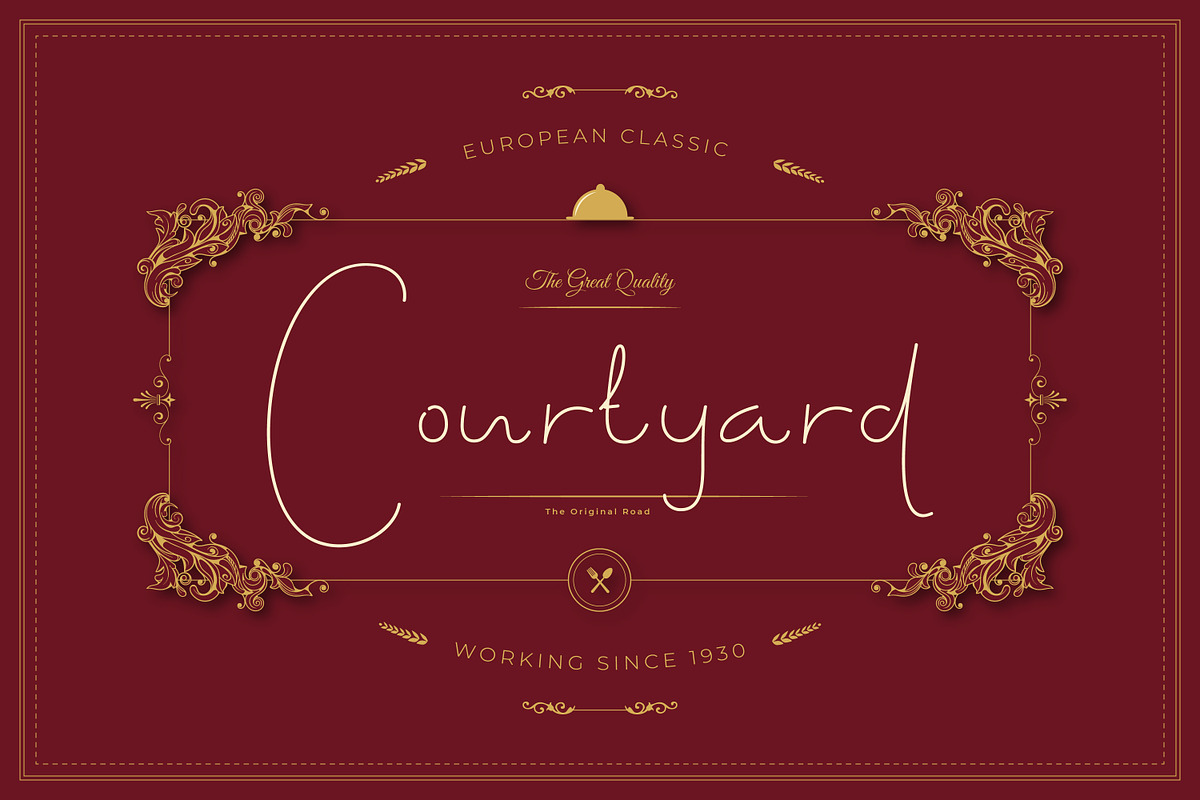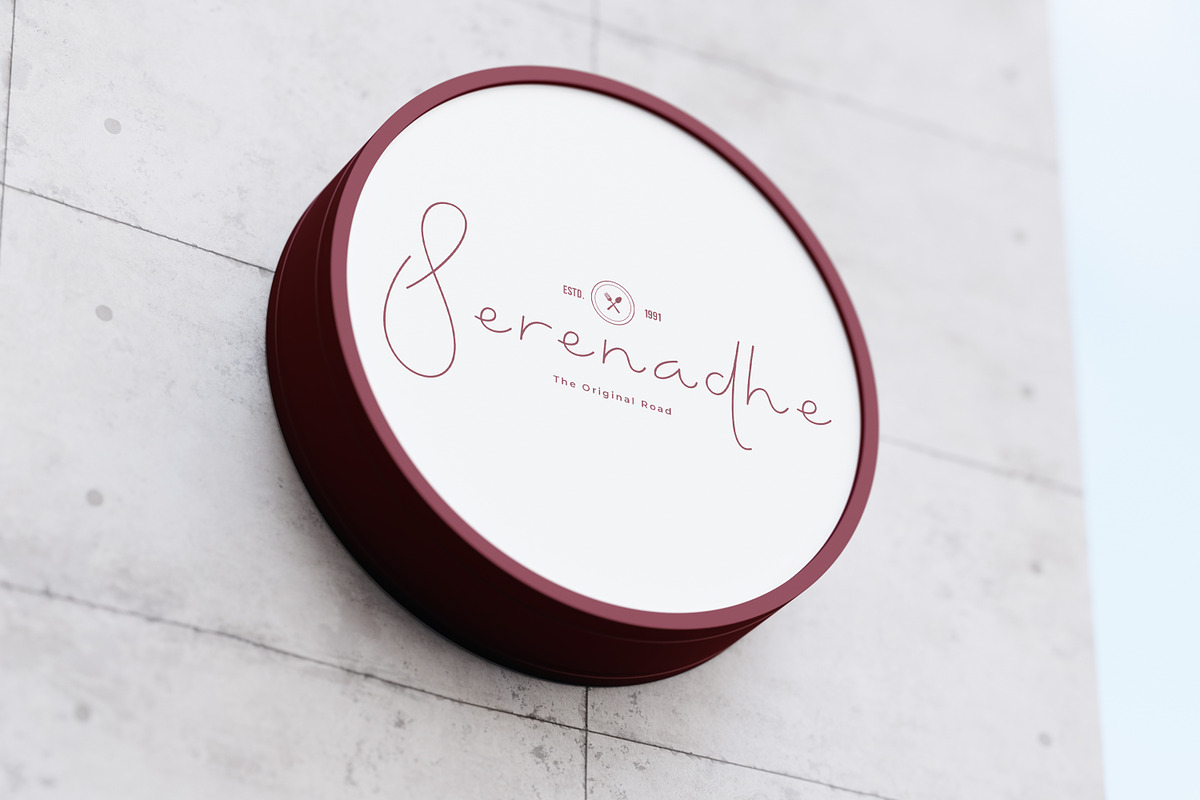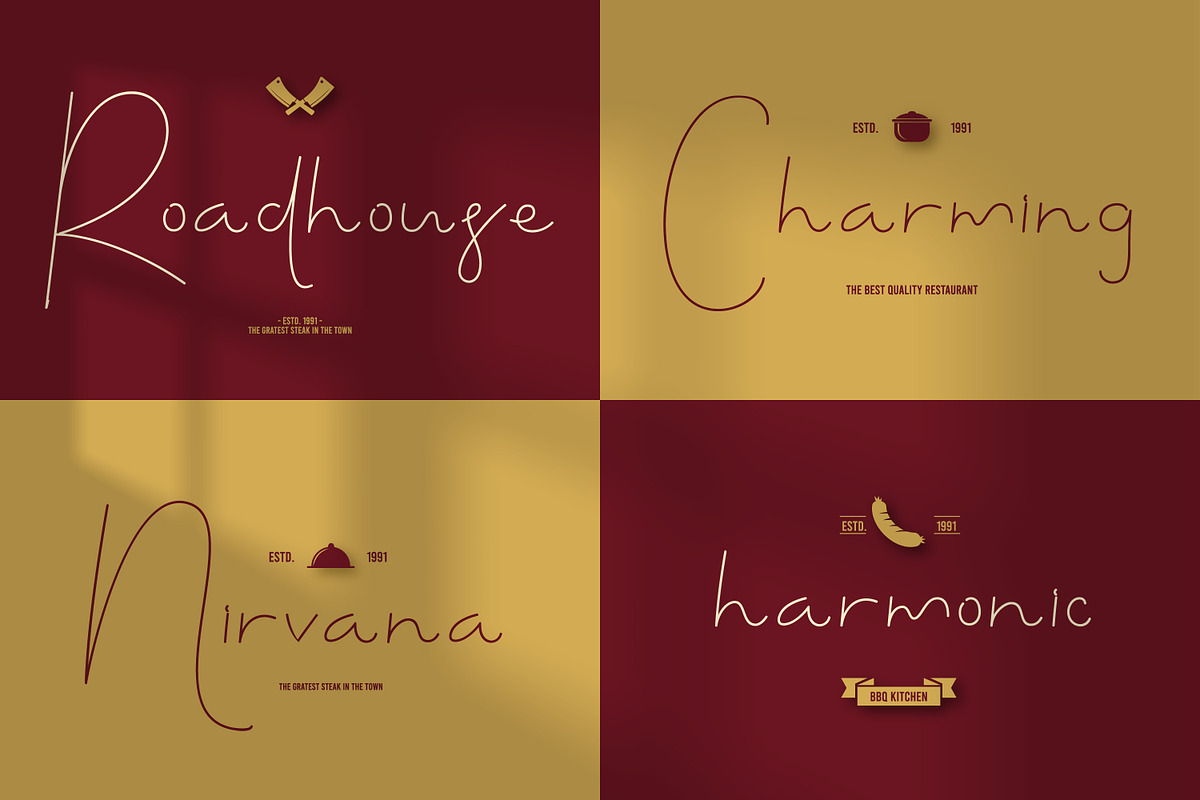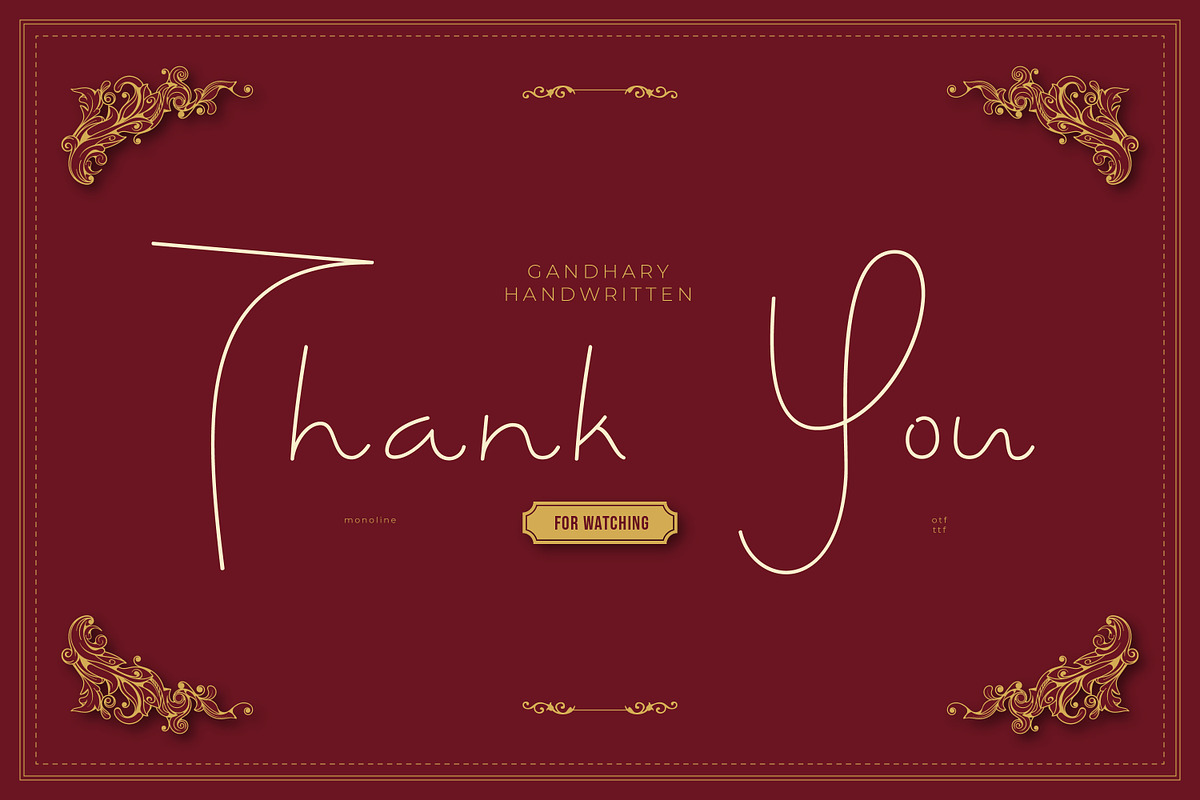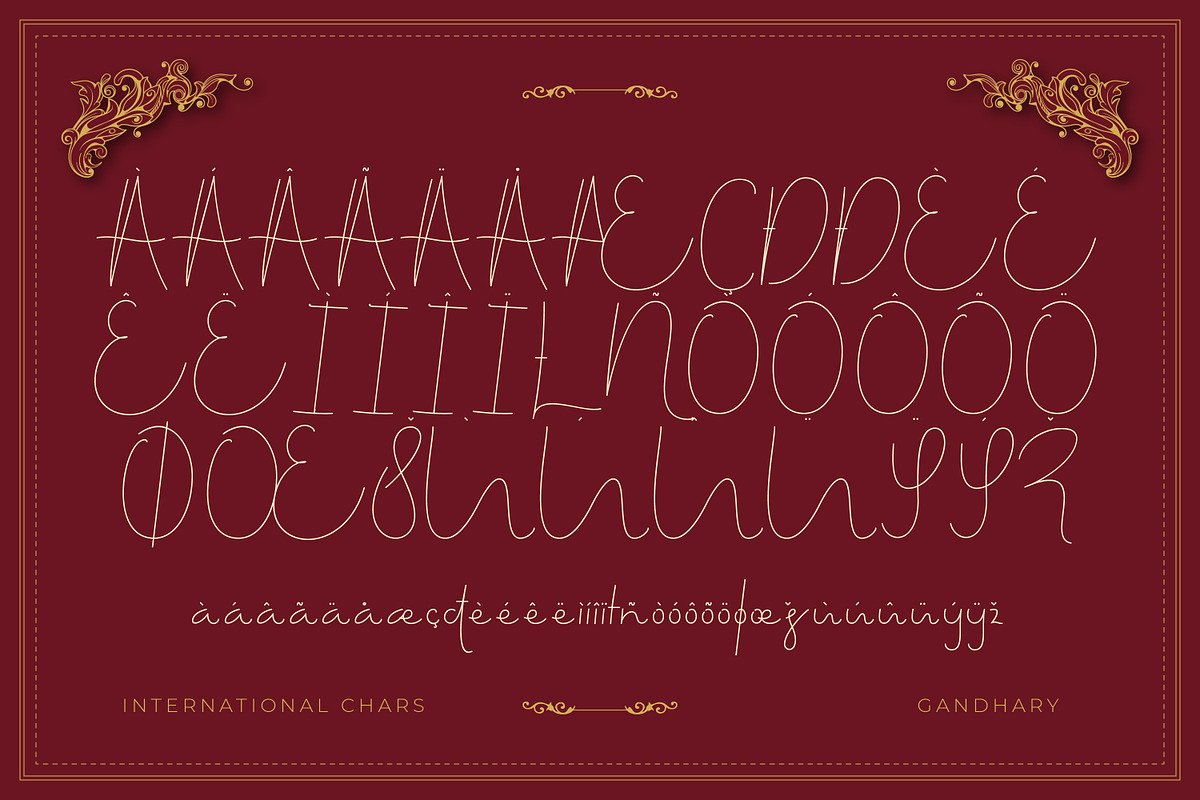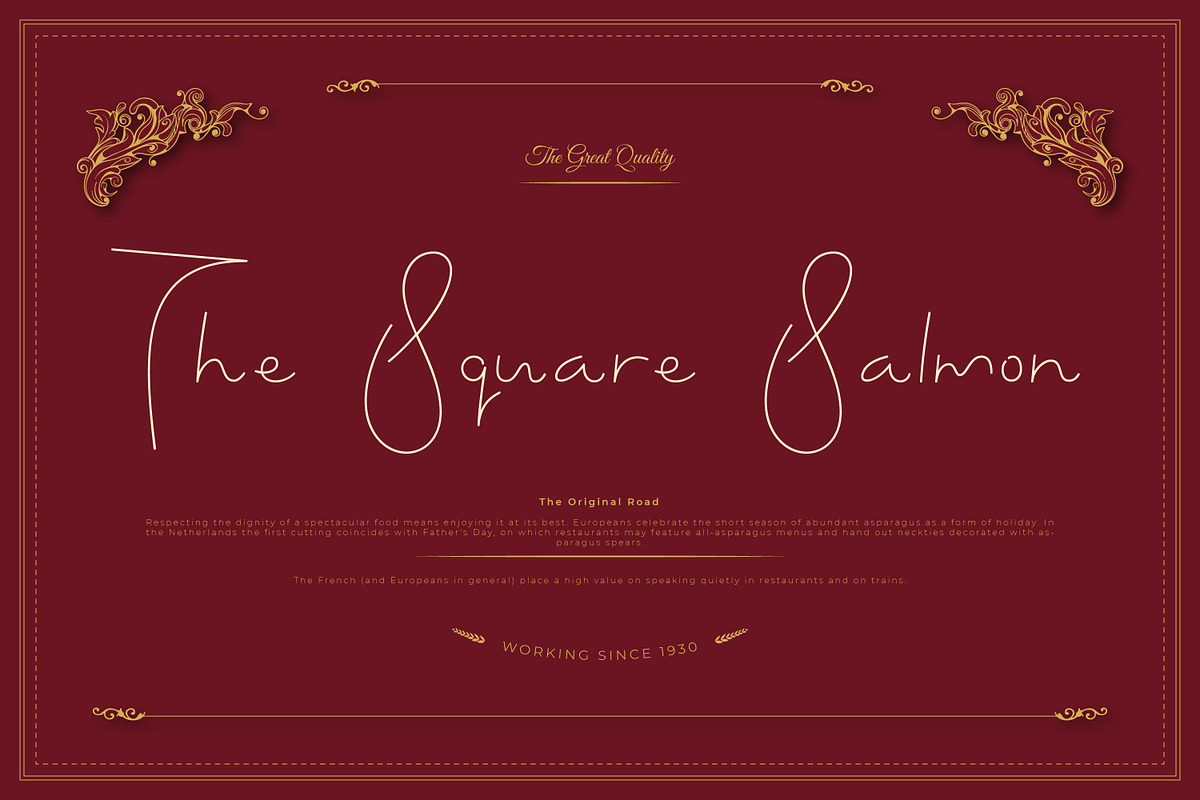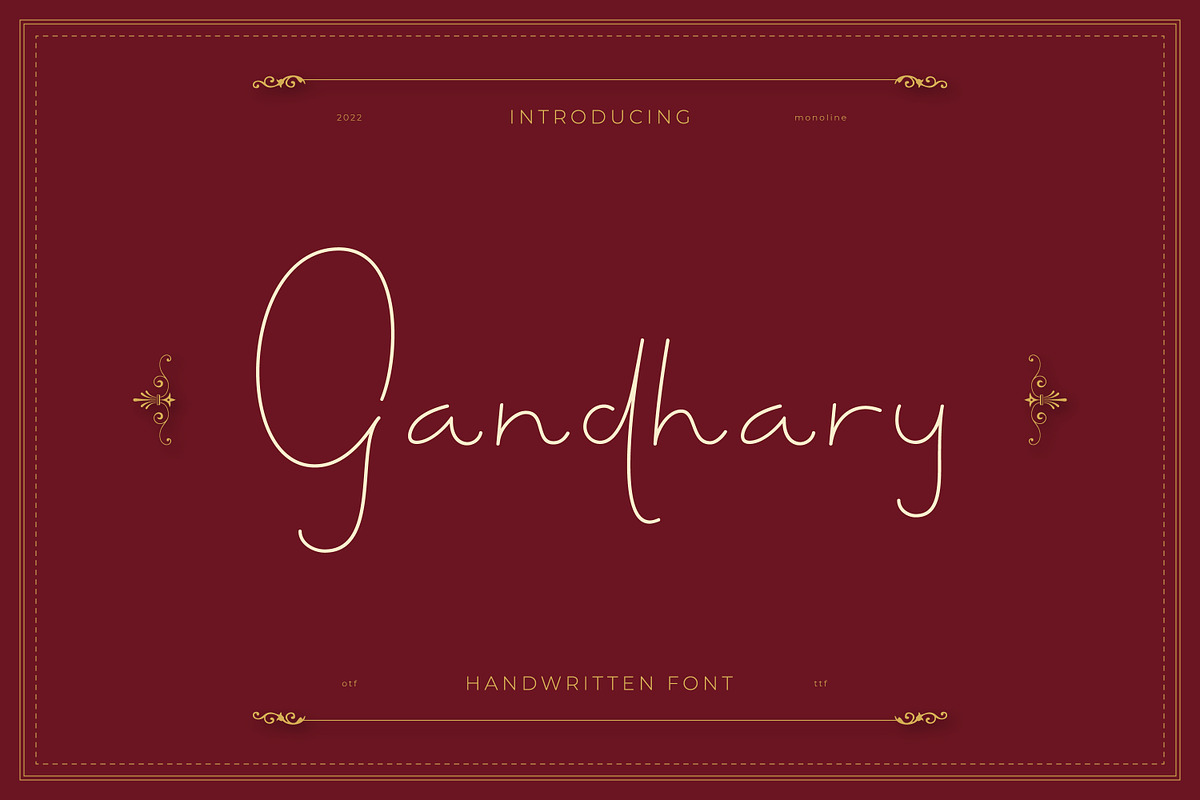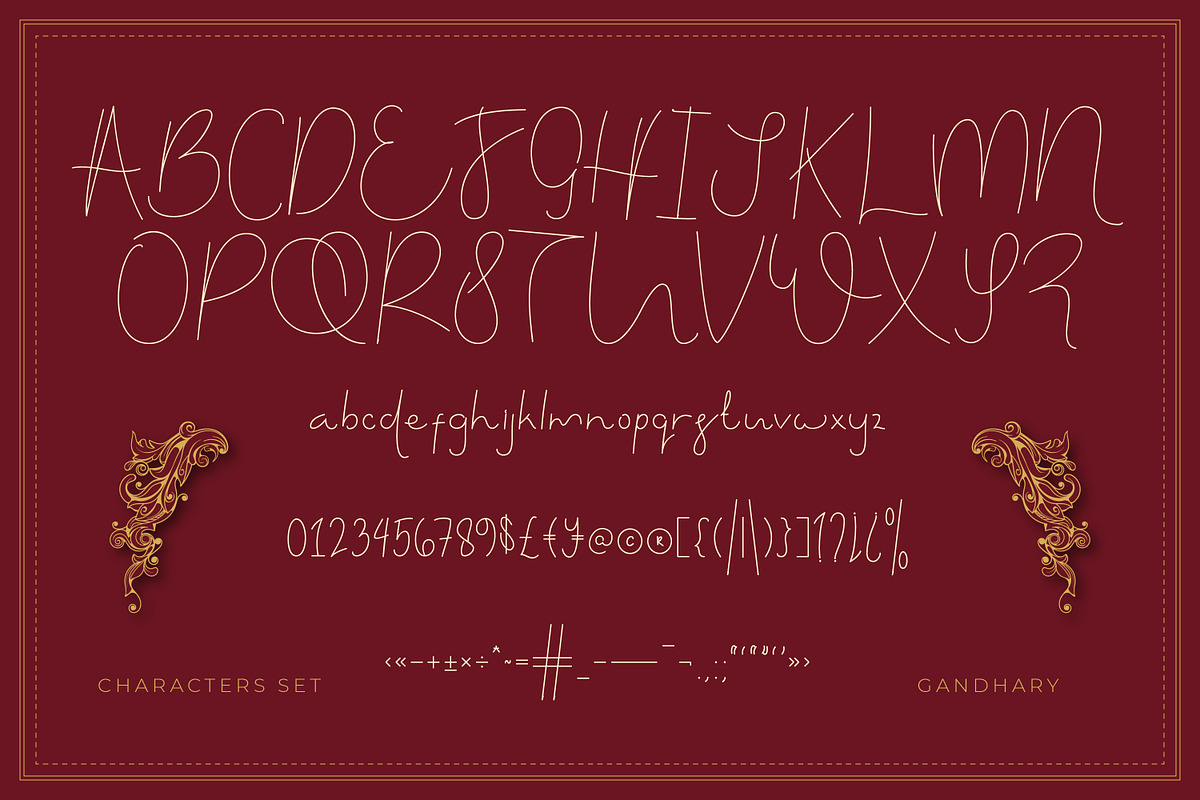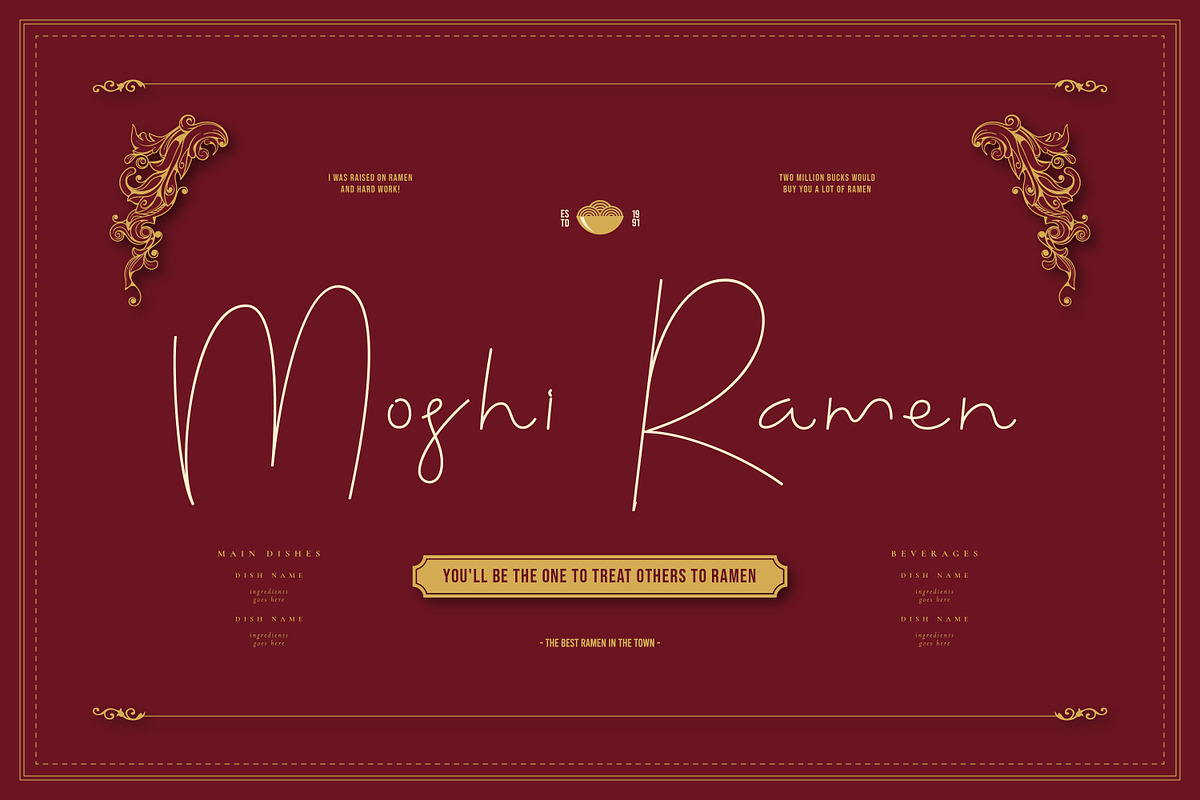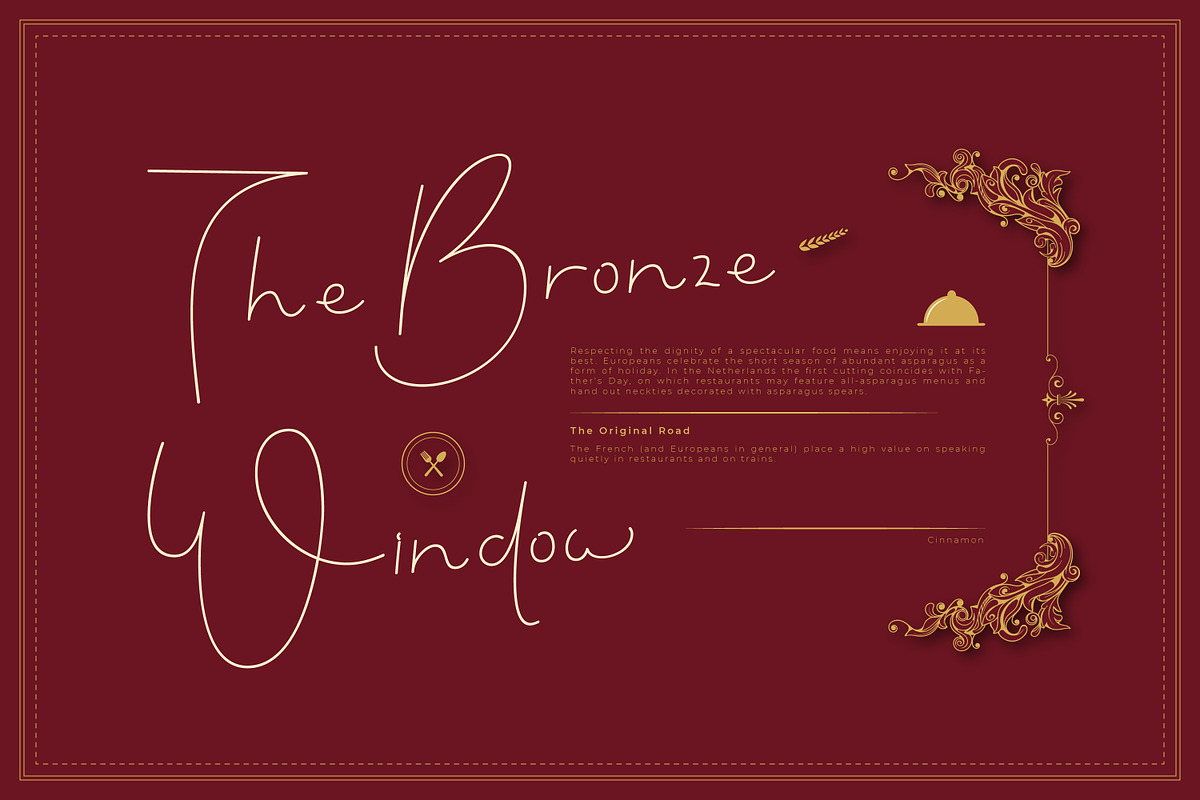
Gandhary Handwritten Font
Gandhary is a handwriting font that has beautiful curves in each letter. With a flexible line, this font looks light and elegant. Released in 2022 with the aim of giving a beautiful impression like never before, this font is inspired by Gandari's long hair that looks beautiful dangling. you can use this font on your note, scraftbook, and lettering also suitable for any design.
- OpenType Features (Stylistic Set)